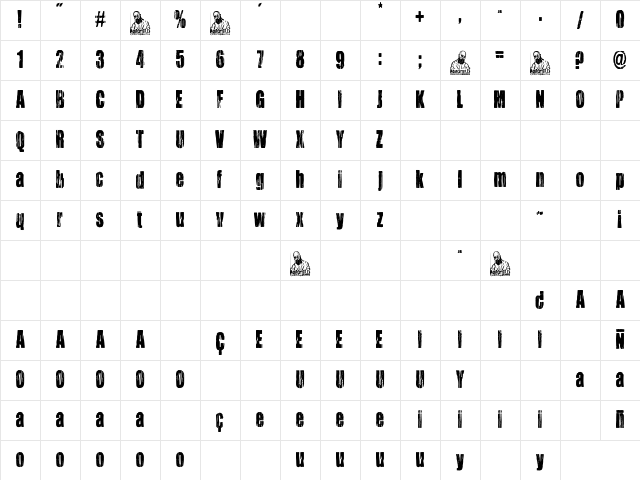
Complete Nio Prodigio Regular glyph index. Displaying only characters natively supported by Nio Prodigio Regular font.
Nio Prodigio is a composed and adaptable typeface that performs quietly and consistently across a wide range of design contexts.